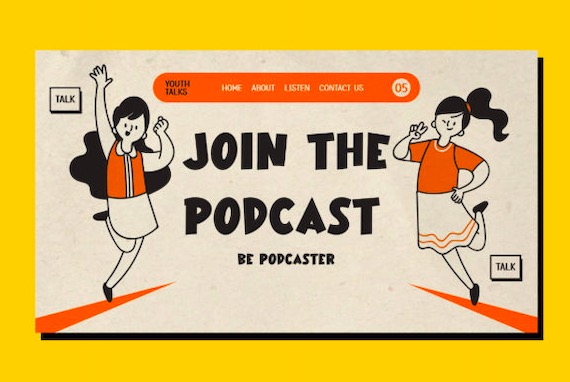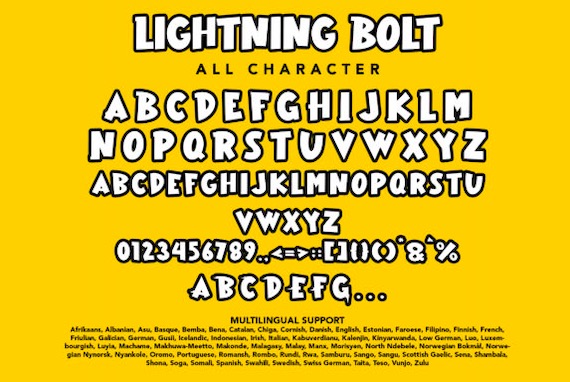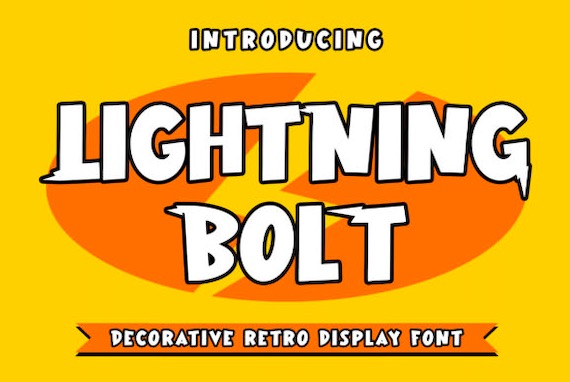
Lightning Bolt Font is categorized into Display fonts with many fancy and cheerful characters. So, you can use this gorgeous font for many favorite designs, for example, cartoon film titles. It was created and shared by Arendxstudio along with a perfect classic Display style.
Lightning Bolt Display Font